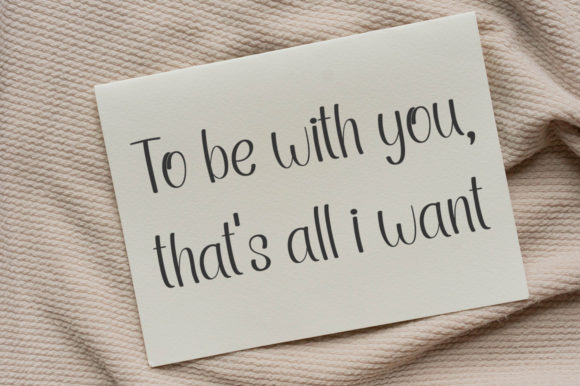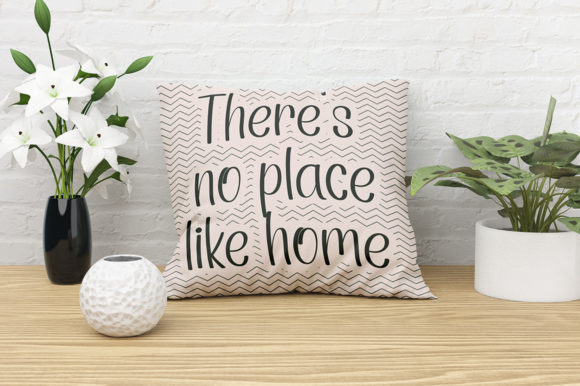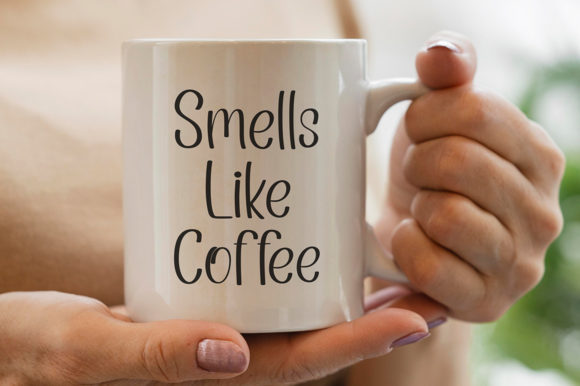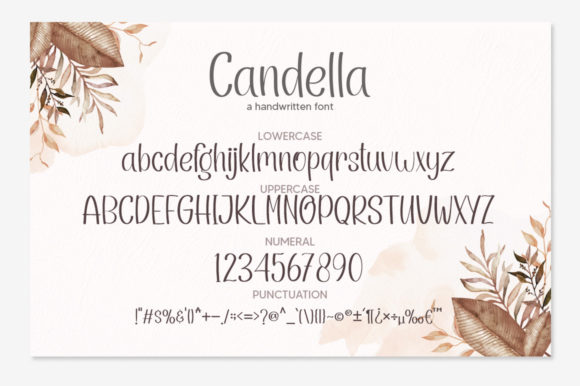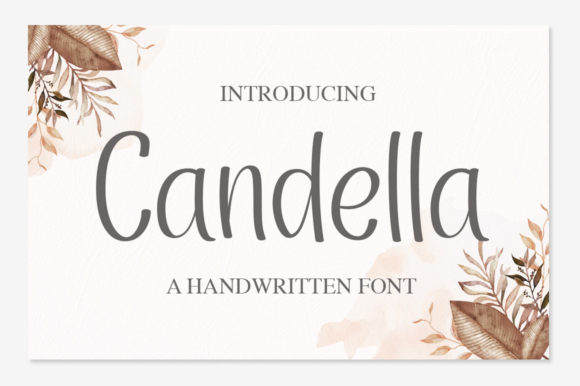
Candella Font: The Perfect Handwritten Font for Chalkboard Quotes and Teaching Materials
Are you a designer or crafter looking for a font that can add a personal and realistic touch to your designs? Look no further than Candella Font! This cute and simple-lettered handwritten font is perfect for creating chalkboard quotes, teaching materials, and other designs that require a authentic look.
What is Candella Font?
Candella Font is a type of handwritten font that is designed to mimic the look of chalkboard writing. It is a simple and elegant font that is perfect for creating a variety of designs, from inspirational quotes to teaching materials. The font is characterized by its rounded edges, simple lettering, and authentic look.
Features of Candella Font
Candella Font has several features that make it a great choice for designers and crafters. Some of its key features include:
- Cute and Simple Lettering: Candella Font has a cute and simple lettering style that is perfect for creating chalkboard quotes and teaching materials.
- Authentic Look: The font has an authentic look that will add a personal and realistic feel to your designs.
- Easy to Read: Candella Font is easy to read, making it perfect for creating teaching materials and other designs that require clear and legible text.
- Versatile: The font is versatile and can be used for a variety of designs, from inspirational quotes to posters and flyers.
Uses of Candella Font
Candella Font is a versatile font that can be used for a variety of designs. Some of its popular uses include:
- Chalkboard Quotes: Candella Font is perfect for creating chalkboard quotes that are inspirational, motivational, or simply fun.
- Teaching Materials: The font is great for creating teaching materials, such as worksheets, posters, and handouts.
- Posters and Flyers: Candella Font can be used to create posters and flyers for a variety of events and occasions.
- Social Media Graphics: The font can be used to create social media graphics, such as Instagram posts and Facebook graphics.
Benefits of Using Candella Font
There are several benefits to using Candella Font in your designs. Some of its benefits include:
- Unique Look: Candella Font has a unique look that will set your designs apart from others.
Candella Font is a great choice for designers and crafters who want to create high-quality designs with a personal and realistic touch. Its cute and simple lettering style, authentic look, and versatility make it perfect for creating chalkboard quotes, teaching materials, and other designs. With its ease of use, cost-effectiveness, and time-saving features, Candella Font is a must-have font for any designer or crafter.